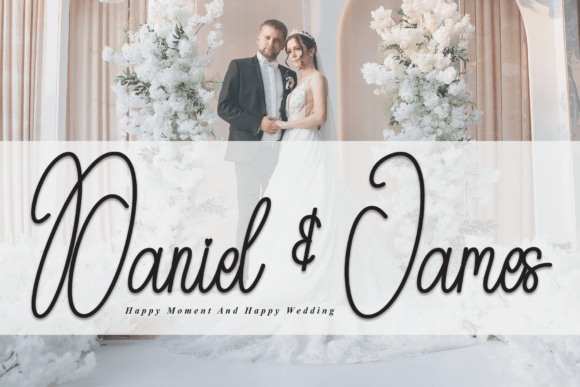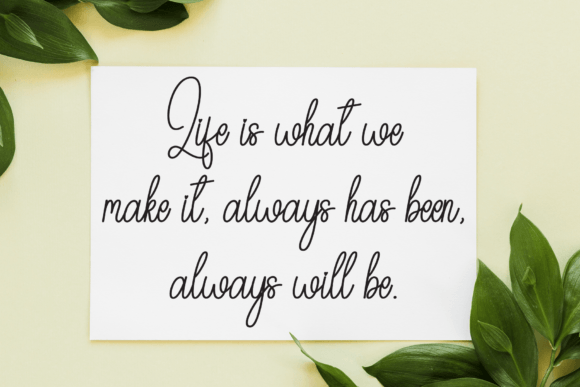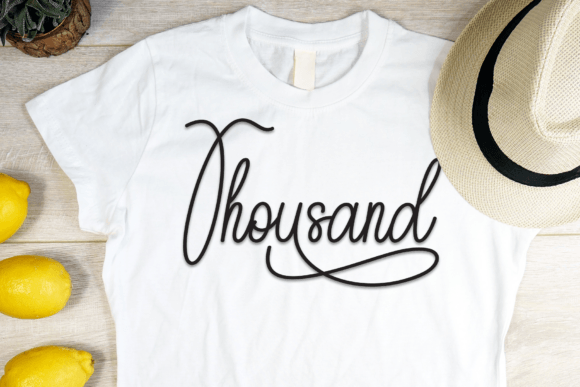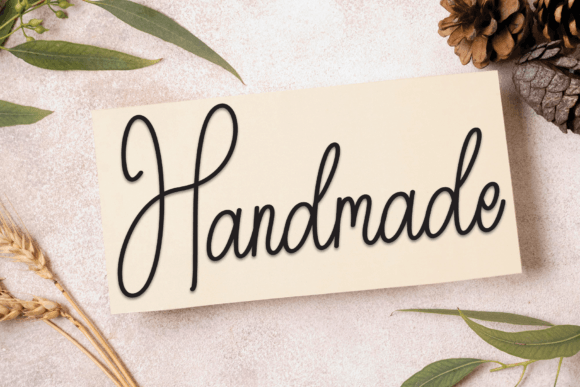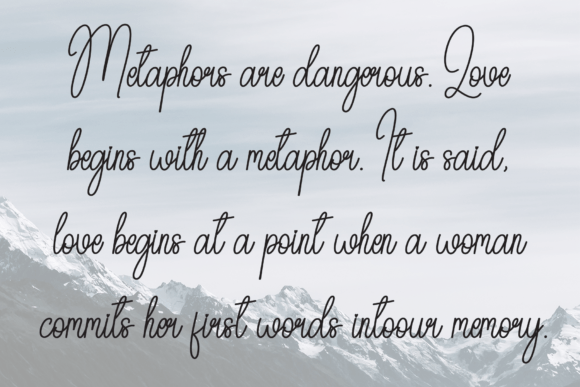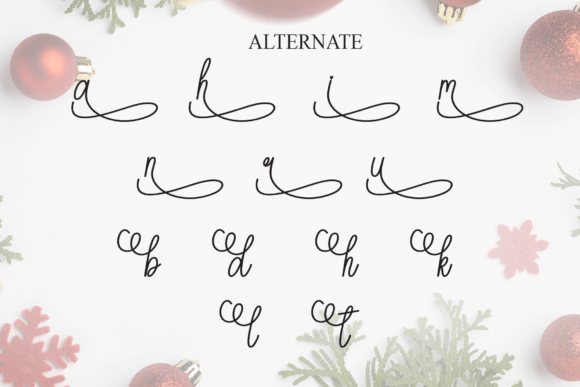
A Delightful Touch for the Holiday Season
As you sit at your desk, surrounded by twinkling lights and festive decorations, you can’t help but feel the excitement of the holiday season. The sound of jingling bells and the warmth of a crackling fire are the perfect accompaniments to a creative session. And what better way to capture the magic of Christmas than with a font that embodies the spirit of the season?
Introducing Christmas Font, a charming handwritten display font designed to bring a touch of fun and sweetness to your creations. Its delicate and playful style makes it a flawless choice for wedding invitations, heartfelt cards, or any bespoke design craving for an adorable touch. Whether you’re a seasoned designer or a holiday enthusiast, Christmas Font is sure to add a dash of joy to your projects.
Christmas Font Key Features
- Size: Multi-weight family with 6 font weights (Thin, Light, Regular, Medium, Bold, Extra Bold)
- Unique Characteristics: Hand-drawn, cursive, and connected script with a festive holiday theme
- Languages: Supports a wide range of languages, including Latin, Cyrillic, and Greek
- Kerning and Ligatures: Includes advanced kerning and ligature pairs for professional typography
Designer Review: Christmas Font
Overall, I think the Christmas Font is a decent effort. It’s got a playful vibe to it that could work well for holiday-themed designs. ✨ The font’s bold lines and festive feel make it a good choice for headers or titles, especially if you’re going for a fun and casual look.
- Playful and festive feel, perfect for holiday designs
- Bold lines make it stand out in headers and titles
- Good choice for casual and fun designs
However, there are some limitations to consider. ✠ The font’s design is quite basic and lacks the sophistication of more modern fonts. ⚠️ It’s also not suitable for formal or professional designs, as it may come across as too childish or kitschy. Additionally, the font’s character set is limited, which may cause issues if you need to use it for a large amount of text.
- Basic design that lacks sophistication
- Not suitable for formal or professional designs
- Limited character set
Overall, I’d say the Christmas Font is a good choice for casual holiday designs, but it may not be the best option for more formal or complex projects.